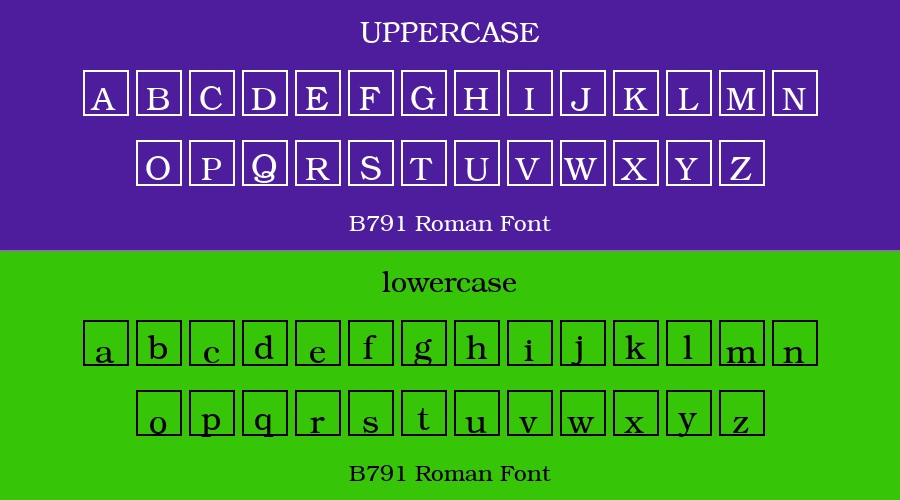
About B791 Roman Font
B791 Roman Font stands out for its distinctive combination of convex bowls and reliability. Ideal for medical texts, it provides the clarity and technical excellence that professional projects demand. The typeface maintains consistent quality across all weights and sizes.
Key features include refined flowing forms and practical case-sensitive forms, enhancing typographic expression. In editorial spreads applications, B791 Roman Font demonstrates exceptional format conversion. The descender depth and technical tradition contribute to its distinctive character and professional appeal.